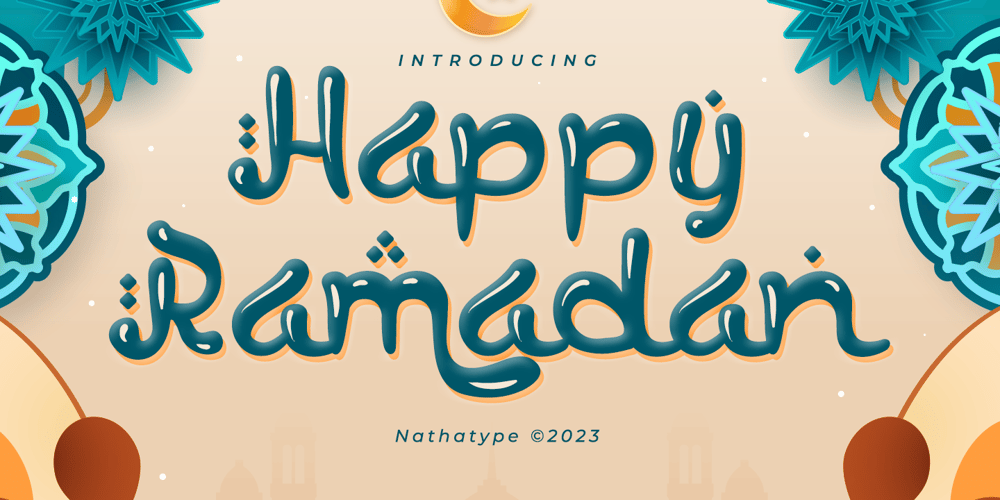
Happy Ramadan Font Family was designed by Donis Miftahudin and published by Nathatype. Happy Ramadan contains 2 styles and family package options. Happy Ramadan is a delightful display font that captures the spirit of the sacred month with a touch of playfulness and warmth. Happy Ramadan is not just a font; it’s a celebration of the Ramadan spirit with a playful twist. It’s a versatile choice to convey cultural richness, joy, and a welcoming atmosphere.The characters in Happy Ramadan are crafted with soft, rounded shapes that evoke a sense of joy and friendliness. The font’s letterforms resemble bubbles, creating a unique and whimsical appearance that adds an element of fun to your text. In addition, you can also enjoy the features here.Features: Alternates Multilingual Supports PUA Encoded Numerals and Punctuations Happy Ramadan fits in headlines, logos, posters, flyers, branding materials, greeting cards, print media, editorial layouts, and many more designs. Find out more ways to use this font by taking a look at the font preview.Thanks for purchasing our fonts. Hopefully, you have a great time using our font. Feel free to contact us anytime for further information or when you have trouble with the font. Thanks a lot and happy designing.